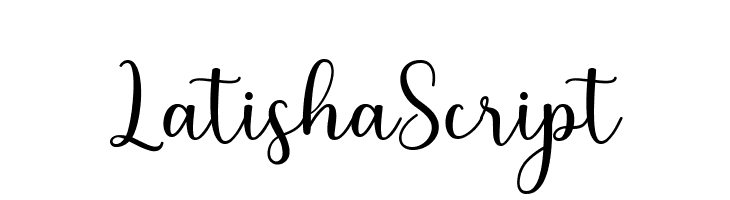
An elegant script font with fluid, interconnected strokes and sophisticated loops.
A graceful and elegant script font with flowing, cursive characters.